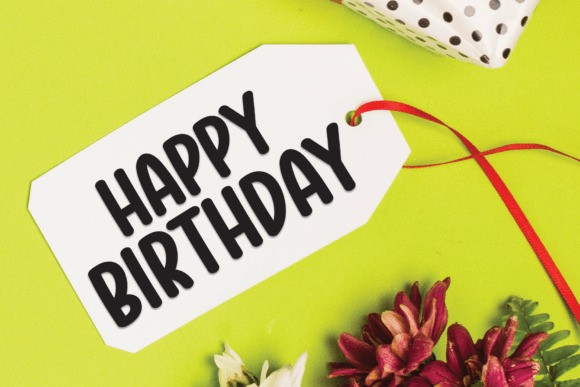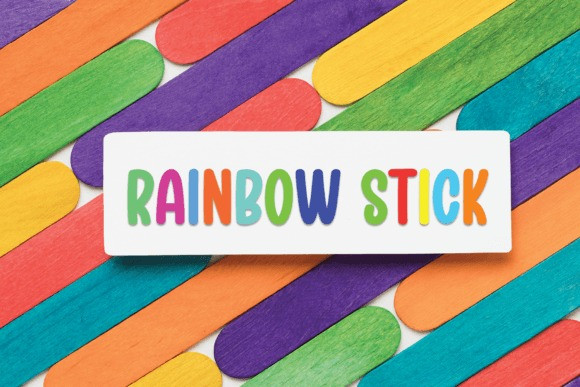
Minimalist Farmhouse Typeface is a fun and versatile sans-serif font. Whether you’re using it for crafting, digital designing, presentations, or greeting card making, it’s perfect!